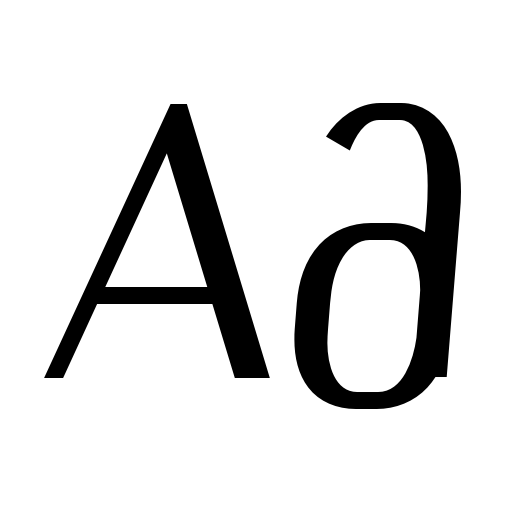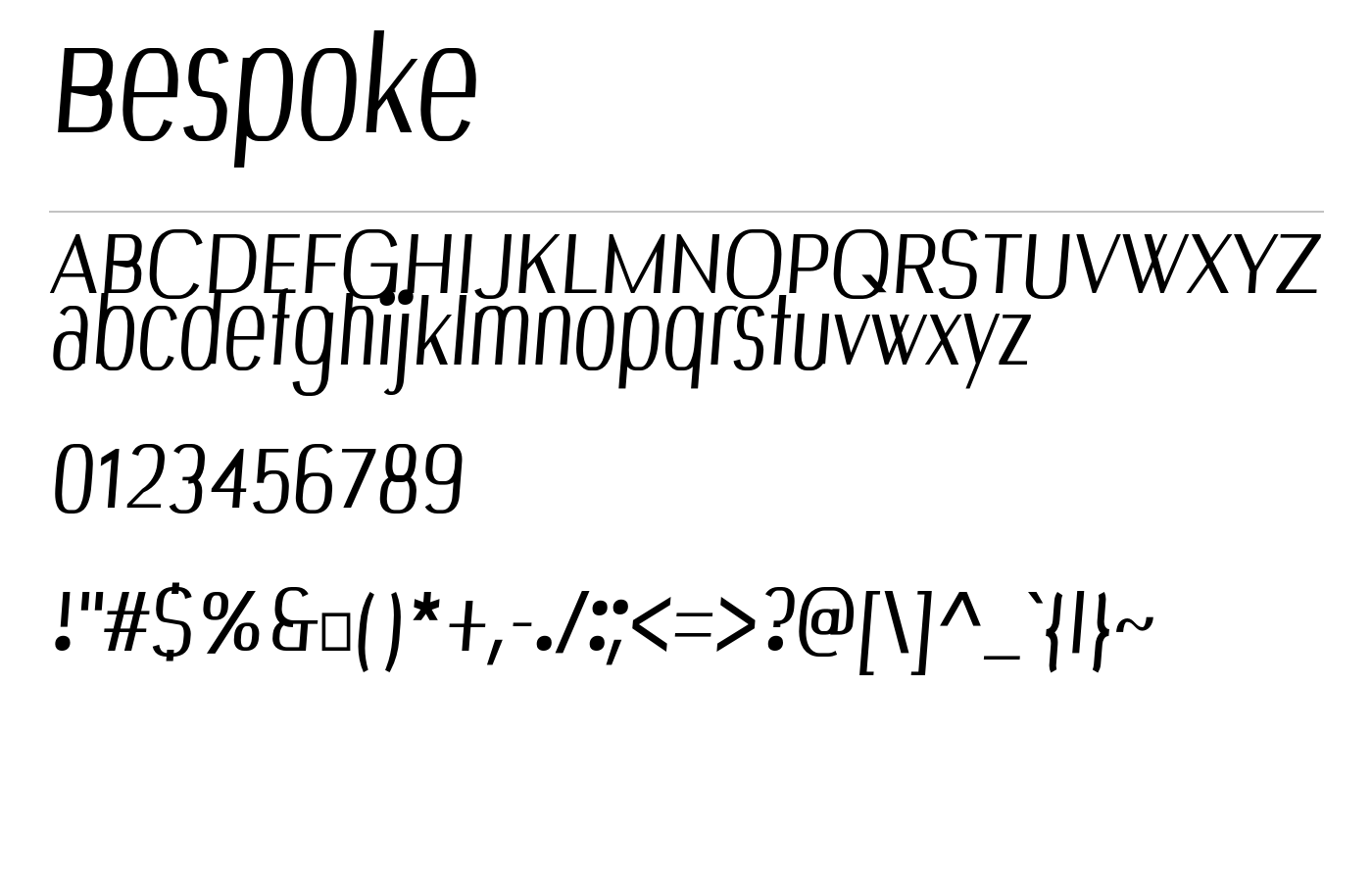
Bespoke Font is a sleek, narrow sans serif with a modern and elegant feel, characterized by its tall x-height and slightly condensed letterforms. Its clean strokes and understated curves make it ideal for stylish branding, editorial headlines, and sophisticated digital use where clarity and a refined aesthetic are key. This font works well in contexts that require a contemporary yet classy look, such as fashion, luxury packaging, and high-end websites.
Bespoke Font
About Bespoke Font